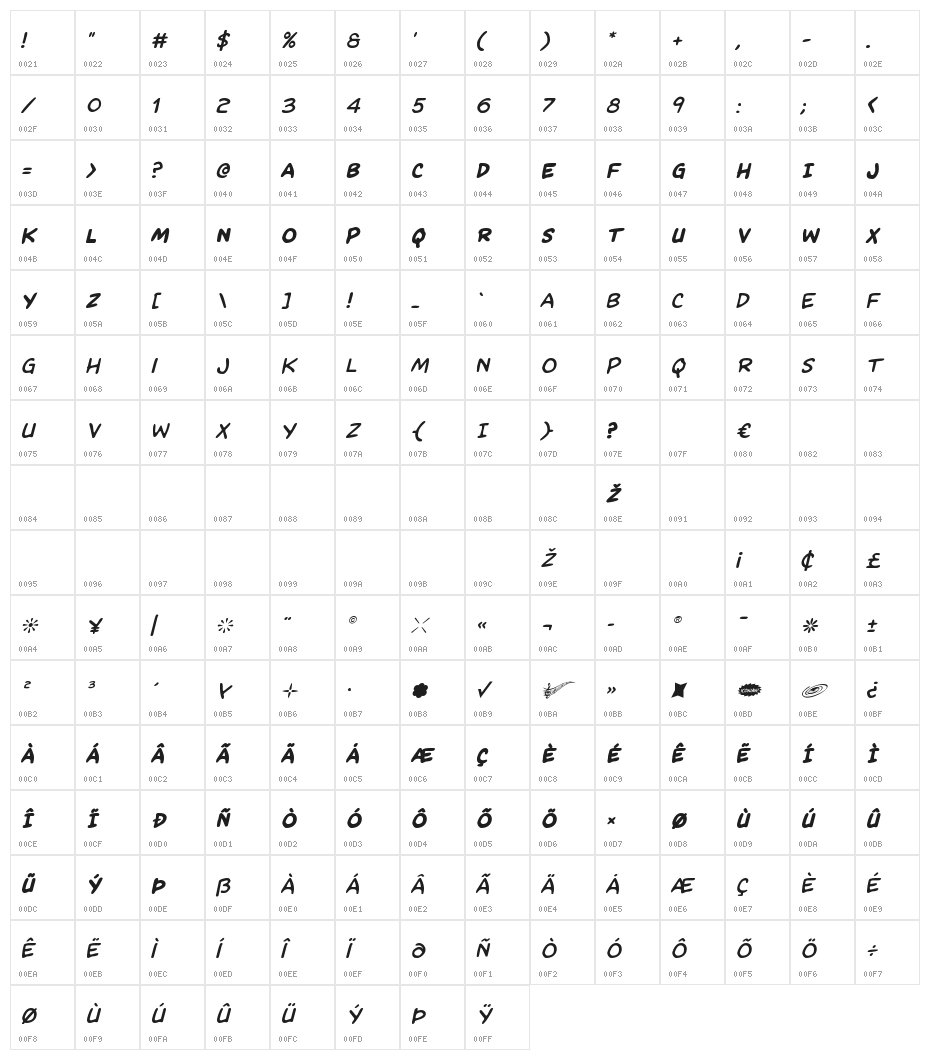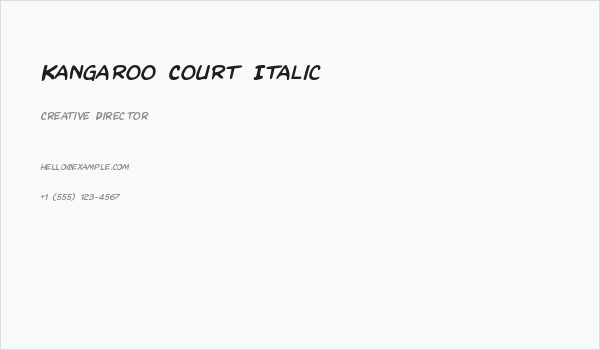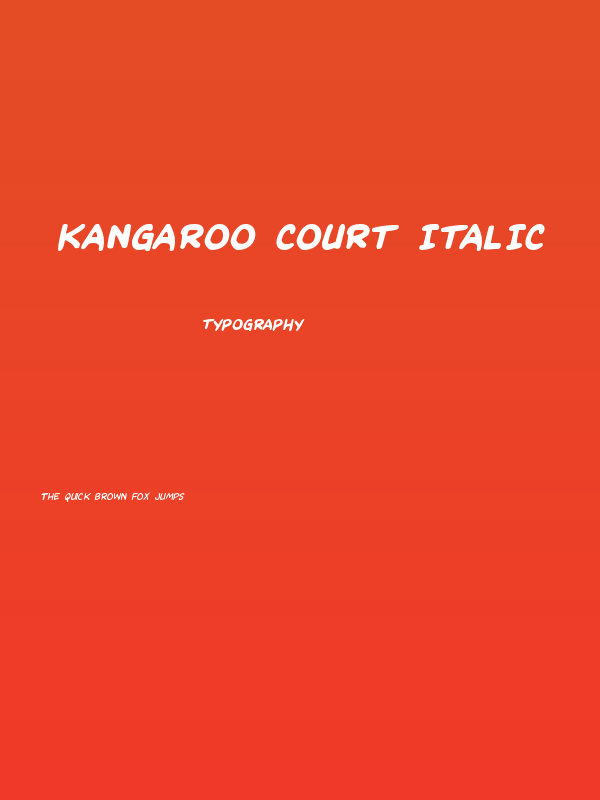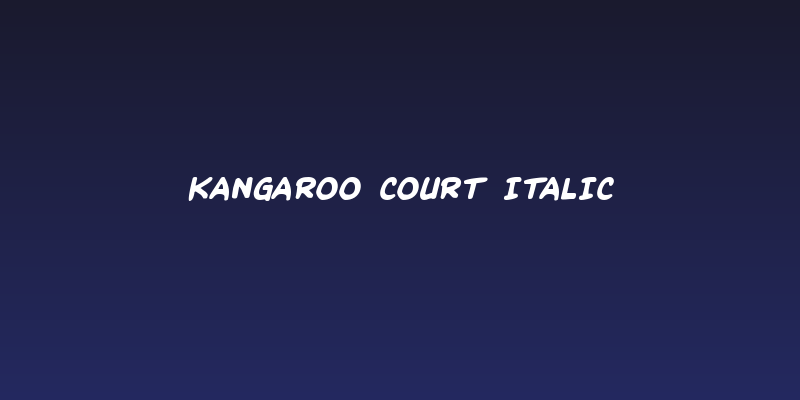
Kangaroo Court Italic Font
Kangaroo Court Italic Description
This font features a playful and dynamic style with a handwritten appearance. The letters are slightly slanted, giving it an italicized look that adds a sense of motion and energy. The strokes are bold and rounded, providing a friendly and approachable feel. The characters are well-spaced, ensuring readability while maintaining a casual aesthetic. This font includes both uppercase and lowercase letters, numerals, and a variety of special characters, making it versatile for different design needs.
| Proposed Projects | Ideal for children's books, playful branding, greeting cards, and informal invitations. |